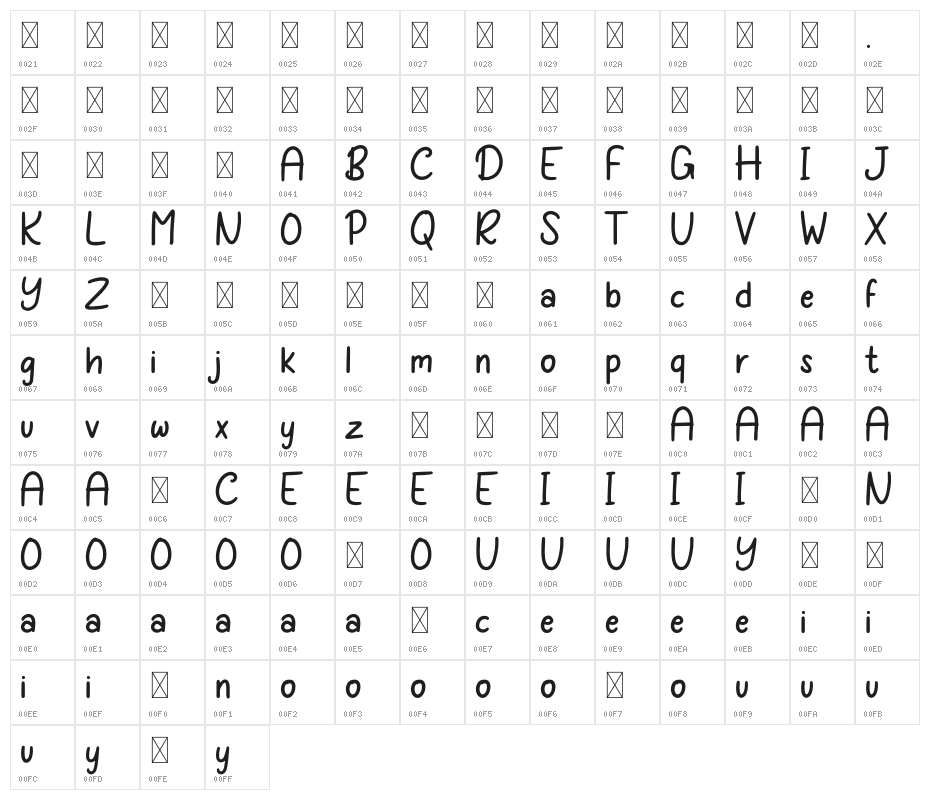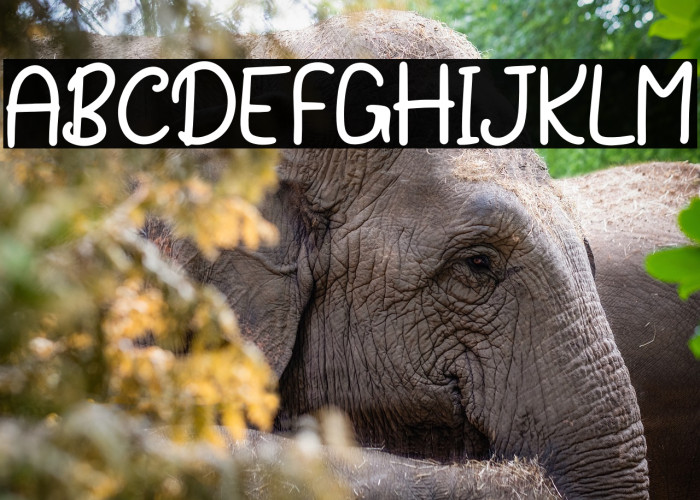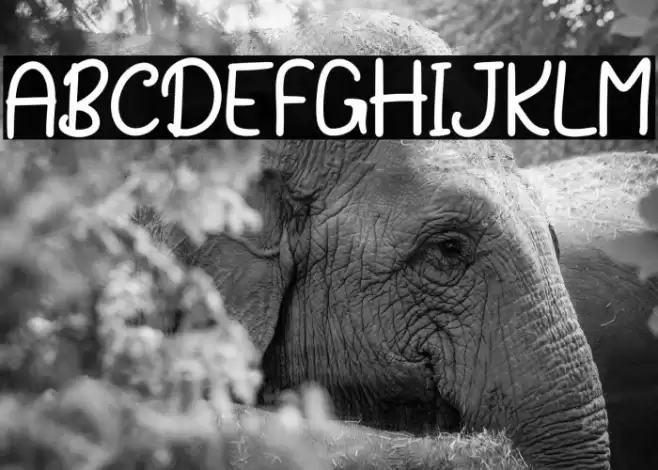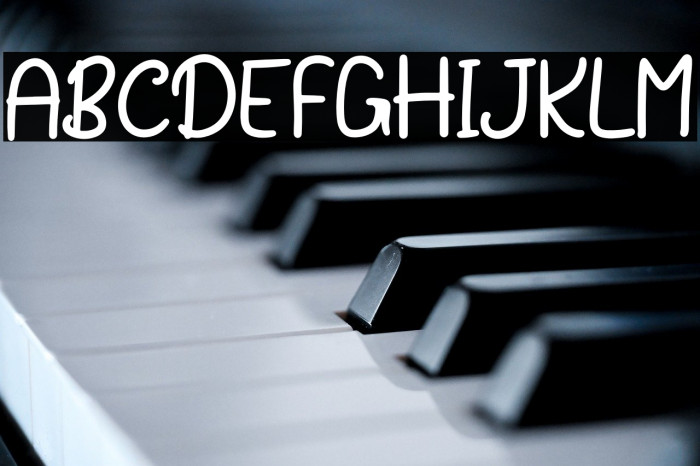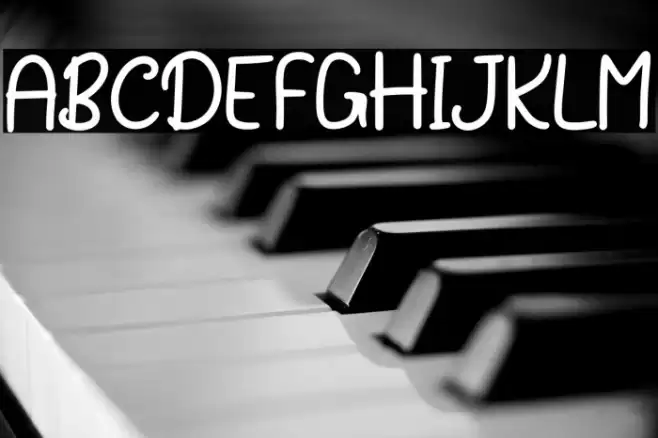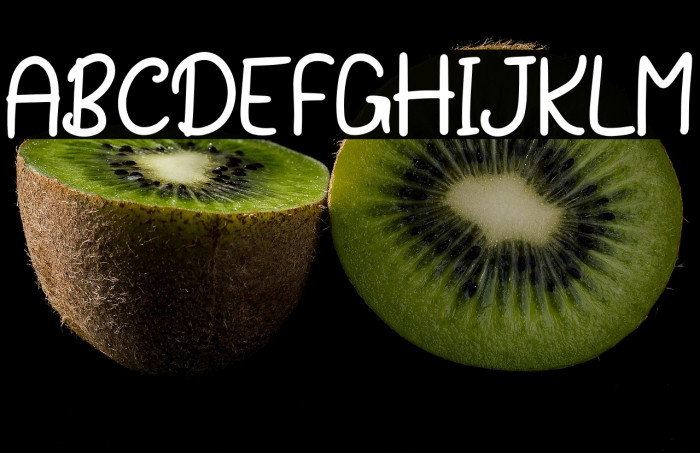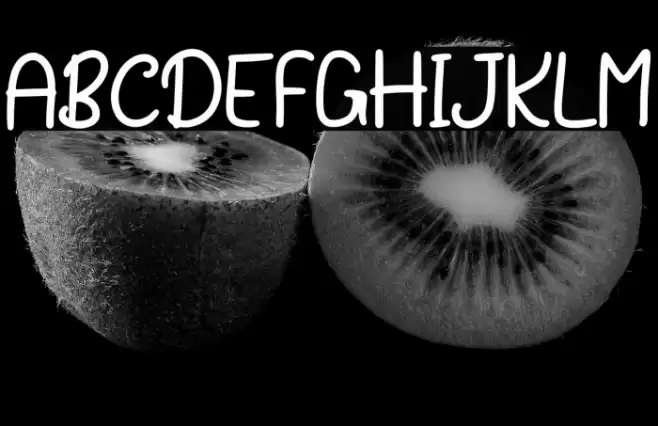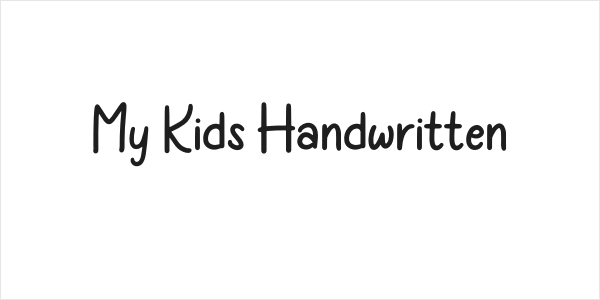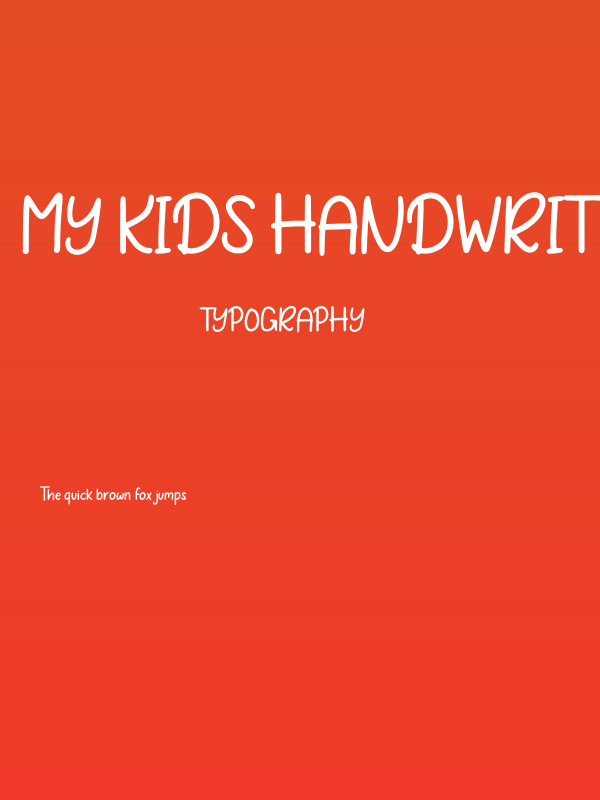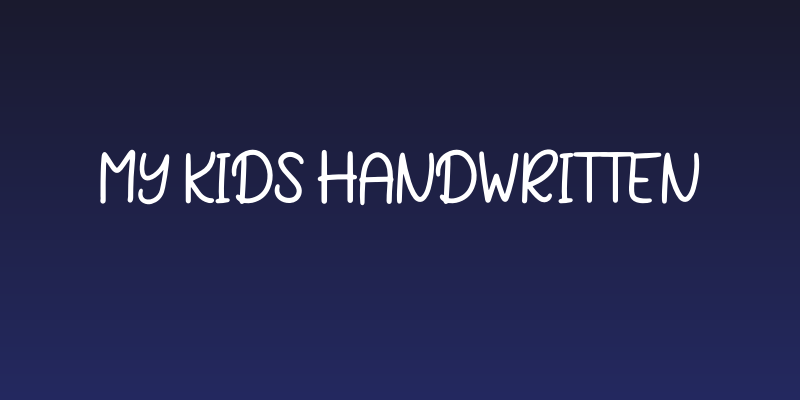
My Kids Handwritten Font
My Kids Handwritten Description
This playful and whimsical font captures the essence of a child's handwriting with its irregular strokes and charming imperfections. The letters are rounded and slightly uneven, giving it a friendly and approachable feel. The uppercase and lowercase letters maintain a consistent style, with a slight tilt that adds to the handwritten effect. The font is easy to read and has a casual, informal appearance, making it perfect for projects that require a personal touch. Its simplicity and warmth make it suitable for a variety of creative applications.
| Use Case | Headlines, Informal text, Children's content |
| Proposed Projects | Ideal for children's books, educational materials, greeting cards, and playful branding. |